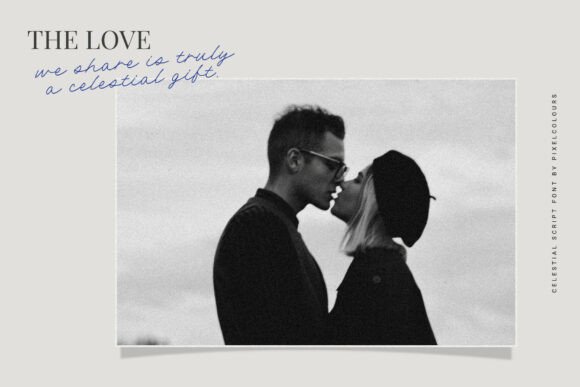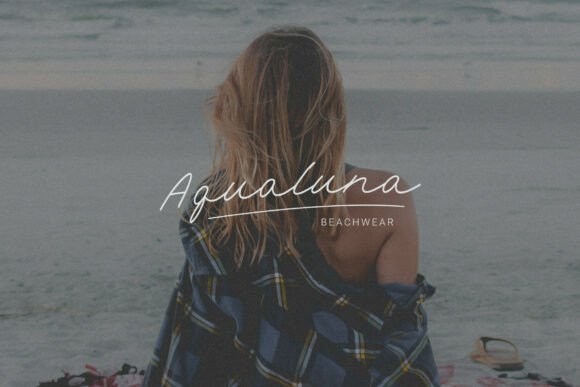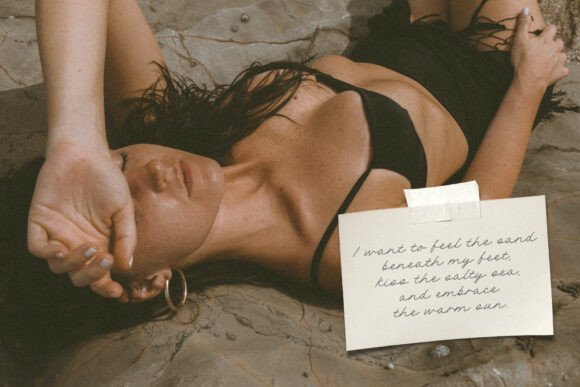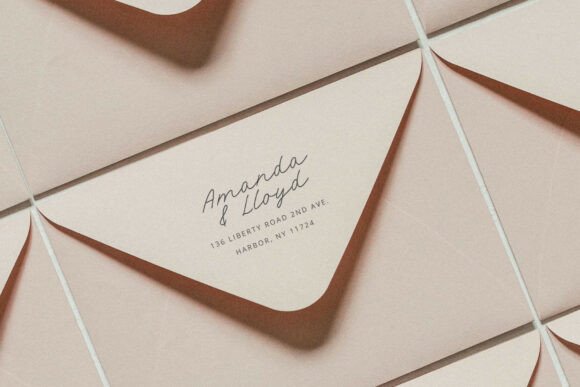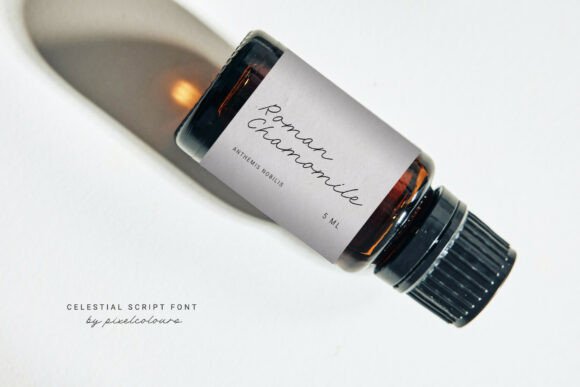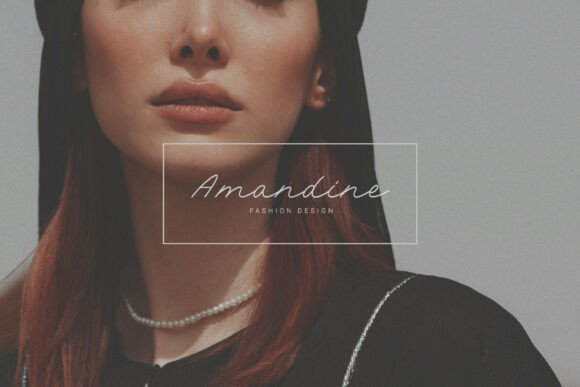
Discover the Magic of Celestial Font
As I sat down to brainstorm ideas for a new design project, I found myself scribbling in a notebook, letting my pen wander across the page in a flowing dance of creativity. It was one of those moments where inspiration struck, and I knew exactly what I needed to bring my vision to life – a font that captured the essence of elegance and charm. And that’s when I stumbled upon the Celestial Font, a stunning handwritten script that radiates a sense of fresh renewal.
With its delicate curves and flowing strokes, the Celestial Font is perfect for invitations, branding, and seasonal designs. Its soft, personal touch adds an uplifting feel to any project, making it a valuable asset for designers. Whether you’re creating a wedding invitation or a holiday card, this lovely typeface is sure to bring a touch of magic to your designs.
Celestial Font Key Features
• Font Family: Celestial Font is a unique, hand-crafted font family consisting of 4 styles: Regular, Italic, Bold, and Bold Italic.
• Character Set: The font family includes a comprehensive character set, covering Latin, Cyrillic, and Greek alphabets, as well as a range of punctuation and special characters.
• Unique Characteristics: Celestial Font features a distinctive, ethereal design with subtle texture and gradient effects, giving it a dreamy, otherworldly feel.
Celestial Font Review
As a designer, I’ve had the chance to work with a wide range of fonts, and the “Celestial Font” is one that stands out ✨. At first glance, its ethereal quality and delicate lines transport me to a celestial world, making it perfect for any project that requires a touch of magic ✨. The font’s smooth curves and subtle flair give it a whimsical feel, ideal for children’s books, fantasy novels, or even a wedding invitation ✨.
• Unique design that sets it apart from other fonts
• Perfect for projects that require a touch of elegance and whimsy
• Works well in both print and digital formats
• Offers a wide range of styles and weights
However, there are some limitations to consider ⚠️:
• The font may not be as readable in smaller font sizes
• Some users may find the design too ornate or distracting
• The font is not as versatile as some other popular fonts
Overall, I think the “Celestial Font” is a great addition to any designer’s toolkit. While it may not be the perfect choice for every project, it’s definitely worth considering for those that require a touch of magic and wonder ✨.
The Celestial Font is ideal for creating a magical and ethereal atmosphere in designs. It is commonly used for:
– Fantasy and science fiction projects
– Dreamy and mystical branding
– Aesthetic quotes and typography